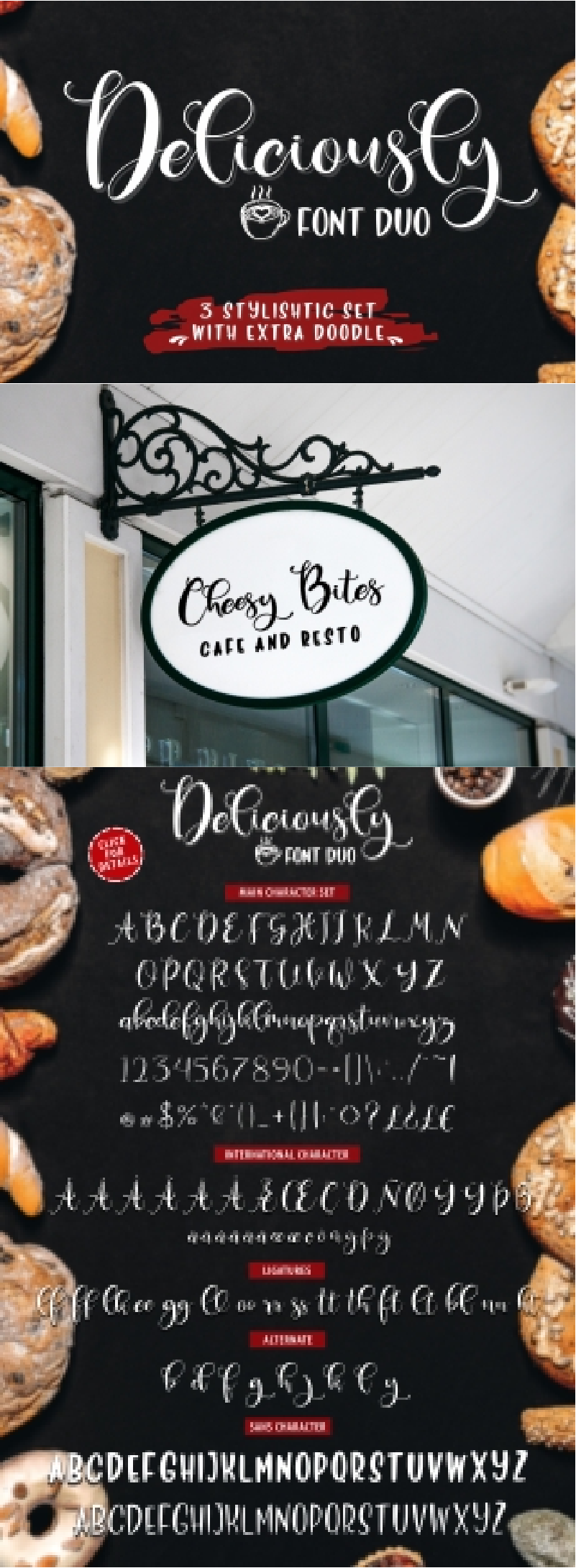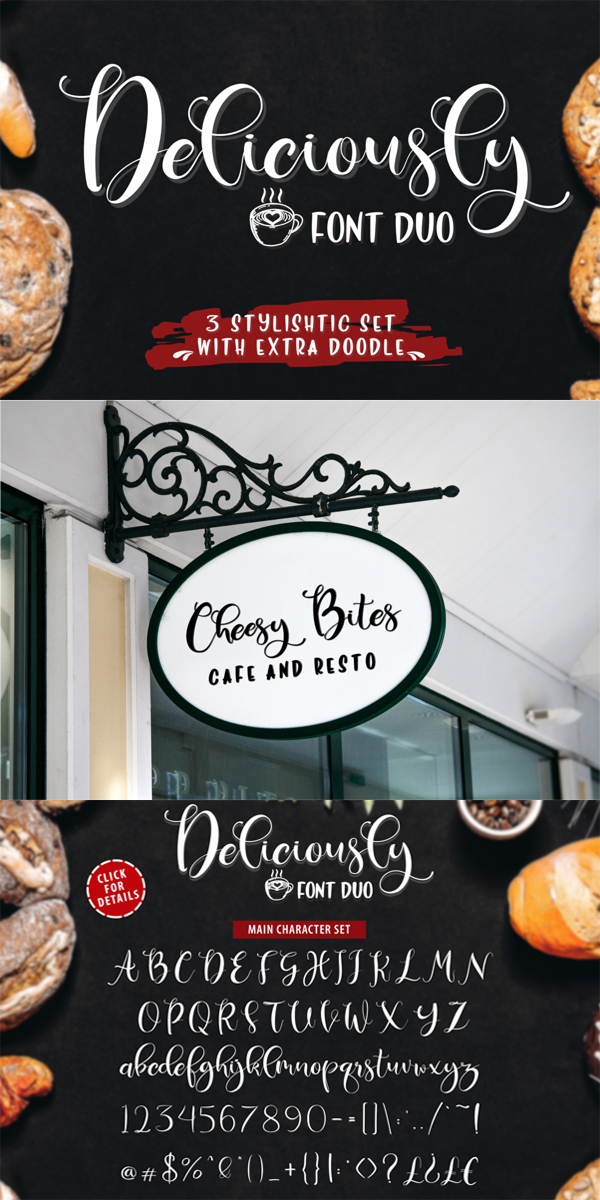
Deliciously Font
Hi Font Lovers! Let me introduce you this Deliciously Font Duo Set
Deliciously Font Duo Set is a modern font script with more features included:
- Deliciously Regular Font
- 3 Stylistic Set with Multilingual Support
- Bold and Regular Fun Sans Font
- 41 Fun Doodles
This font is suitable for logos, branding projects, product packaging, quotes, greeting cards and all of your lovely projects. The Font Duo Set contains a full set of lowercase and uppercase letters; a large range of punctuation; numerals; multilingual support and many cute alternates. See the previews above to get some inspiration on how you can use them.
- Stylistic Alternates